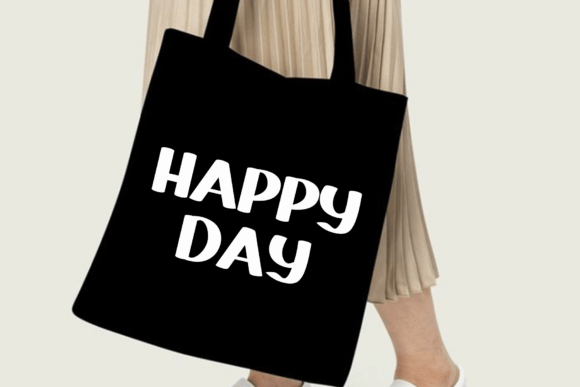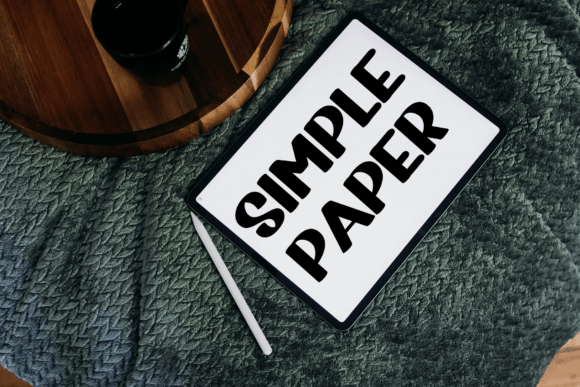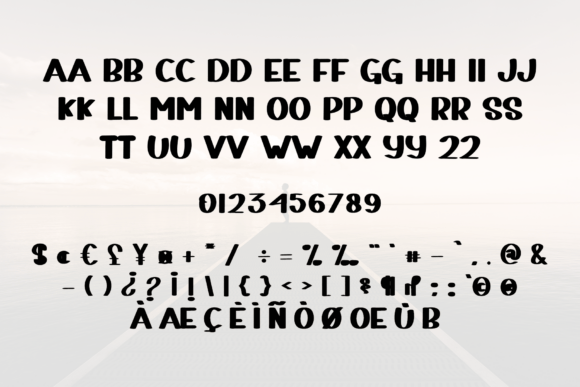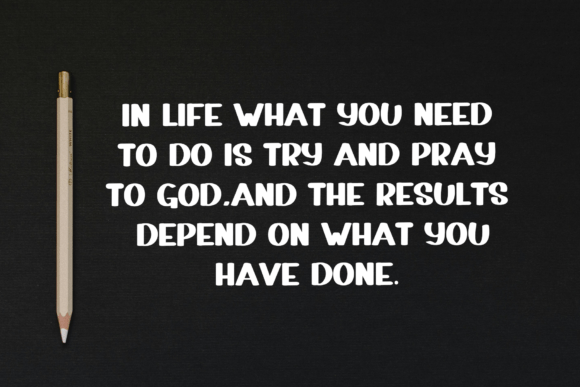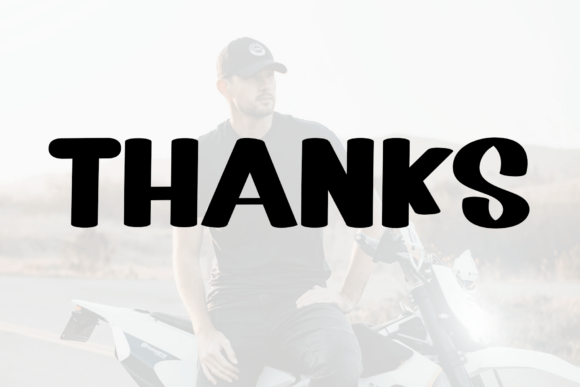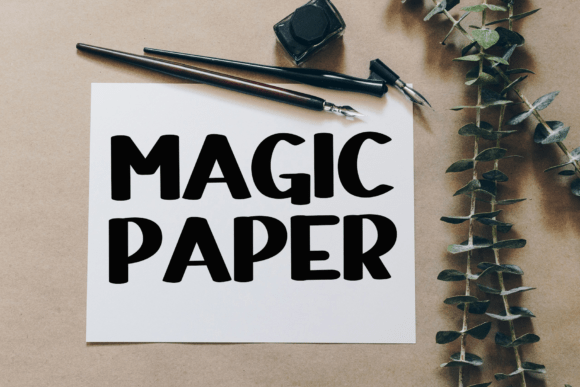
Introducing Handsome Font: The Sweet and Friendly Handwritten Font
Are you looking for a font that can add a touch of warmth and personality to your designs? Look no further than Handsome Font, a sweet and friendly handwritten font that’s perfect for a variety of creative projects. In this article, we’ll take a closer look at the characteristics of Handsome Font, its ideal uses, and why it’s a great choice for designers and crafters.
What is Handsome Font?
Handsome Font is a fresh and casual handwritten font that’s designed to bring a sense of joy and playfulness to your designs. Its sweet and friendly appearance makes it perfect for projects that require a personal touch, such as wedding invitations, greeting cards, and other celebratory materials.
Key Characteristics of Handsome Font
- Handwritten appearance: Handsome Font has a natural, handwritten look that’s perfect for creating a personal and intimate feel in your designs.
- Fresh and casual: This font is designed to be modern and relaxed, making it ideal for a wide range of creative projects.
- Legible and readable: Despite its handwritten appearance, Handsome Font is highly legible and easy to read, even at smaller sizes.
- Versatile: Handsome Font can be used for a variety of design projects, from digital graphics to print materials.
Ideal Uses for Handsome Font
Handsome Font is perfect for a variety of design projects, including:
- Wedding invitations: Add a touch of romance and whimsy to your wedding invitations with Handsome Font.
- Greeting cards: Create personalized and heartfelt greeting cards for special occasions, such as birthdays, anniversaries, and holidays.
- Social media graphics: Use Handsome Font to create eye-catching social media graphics that showcase your personality and style.
- Branding and packaging: Add a personal touch to your brand’s packaging and marketing materials with Handsome Font.
Why Choose Handsome Font?
There are many reasons why Handsome Font is a great choice for designers and crafters, including:
- High-quality design: Handsome Font is designed to be high-quality and visually appealing, making it perfect for professional designs.
- Unique and distinctive: Handsome Font has a unique and distinctive appearance that will set your designs apart from the crowd.
Tips for Using Handsome Font
Here are a few tips for getting the most out of Handsome Font:
- Pair with other fonts: Handsome Font pairs well with other fonts, such as sans-serif fonts and script fonts.
- Experiment with colors: Try using Handsome Font with different colors and textures to add depth and interest to your designs.
- Use for headlines and body text: Handsome Font is suitable for both headlines and body text, making it a versatile font solution.
Handsome Font is a sweet and friendly handwritten font that’s perfect for designers and crafters looking to add a personal touch to their designs. With its fresh and casual appearance, high-quality design, and versatility, Handsome Font is an excellent choice for a wide range of creative projects. Whether you’re creating wedding invitations, greeting cards, or social media graphics, Handsome Font is sure to bring a smile to your audience’s face.